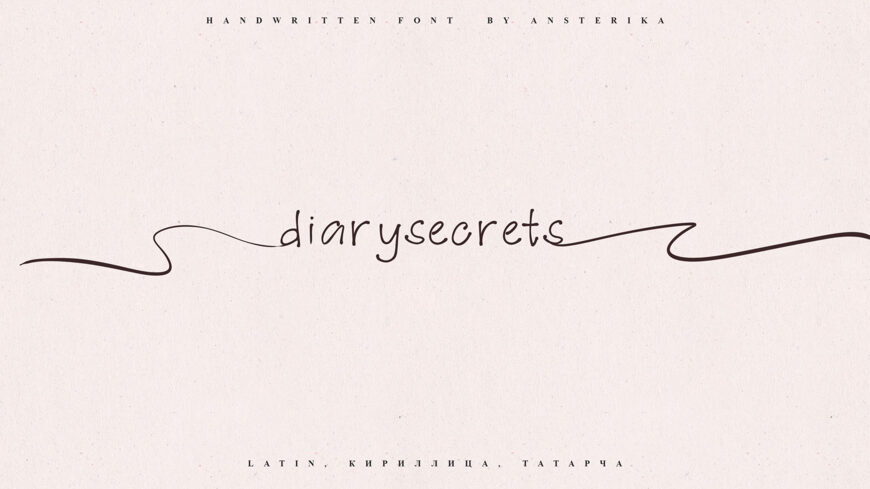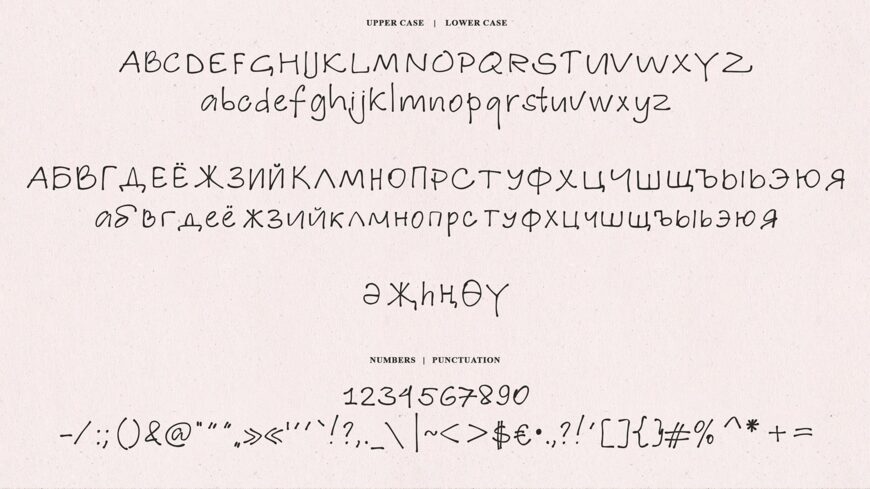
Diarysecrets is a charming handwritten font by Ansterika, designed with a natural, simple, and casual aesthetic. Capturing the authentic warmth of personal lettering, it brings an intimate and organic touch to creative projects.
It includes support for basic Latin, Cyrillic, and Tatar character sets, making it versatile for multilingual designs. Ideal for personal journals, quotes, branding, invitations, and social media graphics, Diarysecrets adds a cozy, handcrafted feel to any design.